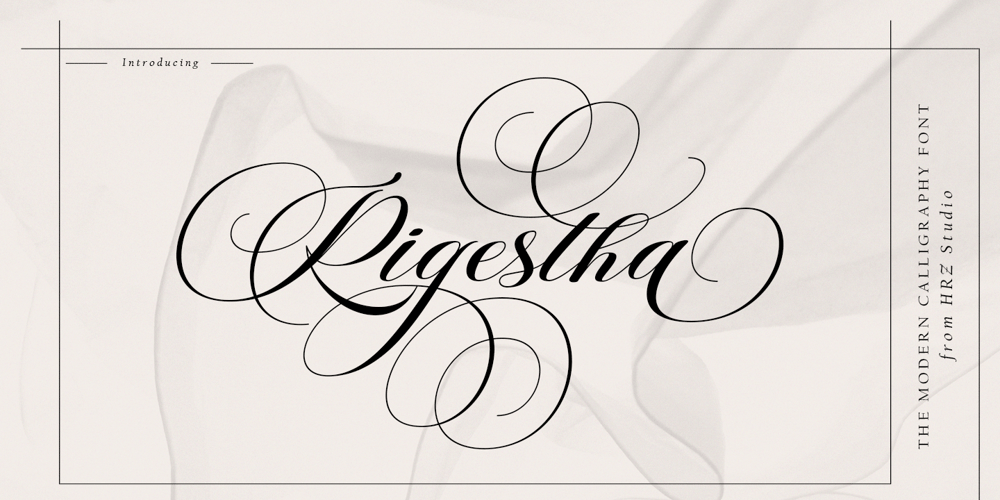
Rigestha Script
Rigestha Script font
Rigestha Script Font Family was designed by Has Rizal and published by Hrz Studio. Rigestha Script contains 1 styles and family package options. Rigestha Script is a calligraphy script font that comes with very beautiful changing characters, a kind of classic decorative copper script with a modern touch, designed with high detail to bring stylish elegance.Rigestha Script is attractive as a typeface that is smooth, clean, feminine, sensual, glamorous, simple and very easy to read, because there are many fancy letter connections. I also offer a number of viable style alternatives for many letters.